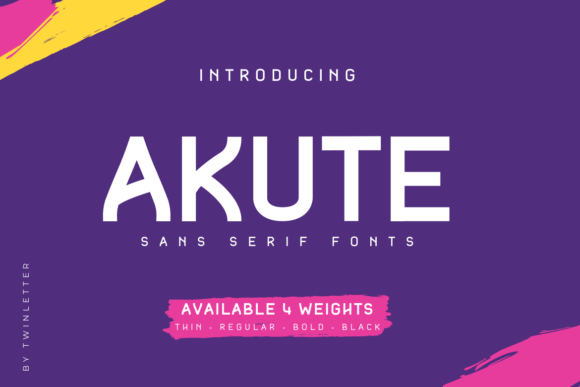
Feast your eyes on Akute Font, the sans serif font that oozes cool and modern vibes. Its clean lines and sharp edges are a match made in heaven for logos, t-shirt designs, creative products, and more. Akute's versatility extends far and wide, making it a go-to choice for a myriad of design projects.
Akute's charm lies in its innate ability to turn ordinary text into captivating headlines, eye-catching logos, and enchanting branding elements. It's the perfect font for businesses and individuals seeking to make a statement and leave a lasting impression.
Crafted with precision and attention to detail, Akute Font delivers a visual experience like no other. Its distinct character adds a touch of sophistication to any design, elevating it from ordinary to extraordinary. With Akute, your creative projects will shine brighter than a star in the night sky.
Don't settle for mediocre fonts that blend into the background. Embrace the power of Akute Font and watch your designs transform into masterpieces. Its timeless appeal ensures that your creations will stand the test of time, captivating audiences for years to come.
So, why wait? Dive into the world of Akute Font today and unleash your creativity. Experience the joy of effortless design and watch as your projects take on a life of their own. Akute Font is the key to unlocking your creative potential and leaving an unforgettable mark on the world.